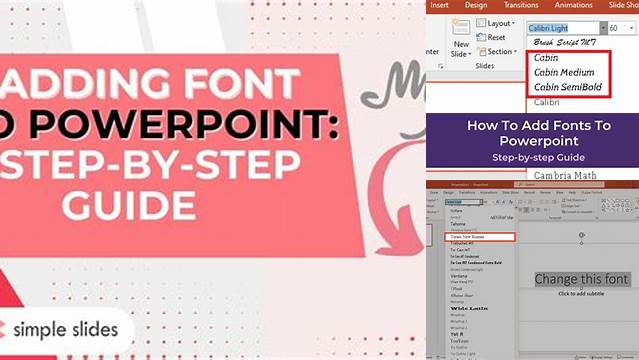
Add Fonts To PowerPoint: A Simple Guide
Hey guys! Ever felt like your PowerPoint presentations are looking a little... blah? Like they're missing that special oomph? One of the easiest ways to inject some personality and visual flair into your slides is by adding new fonts. PowerPoint comes with a decent selection of fonts, but sometimes you need something a little different, something that truly captures the essence of your message and brand. Whether you're aiming for a sleek and modern look, a playful and whimsical vibe, or a formal and professional feel, the right font can make all the difference. In this comprehensive guide, we'll walk you through the process of how to add new fonts in PowerPoint, step by step, ensuring your presentations always look their best. We'll cover everything from finding and downloading fonts to installing them on your system and using them in your presentations. So, grab a cup of coffee, get comfortable, and let's dive into the world of fonts!
Why Add New Fonts to PowerPoint?
Before we get into the how, let's briefly touch on the why. Why should you even bother adding new fonts to PowerPoint? Well, the answer is simple: fonts are powerful tools for communication. They can evoke emotions, convey tone, and reinforce your message. Using the same old default fonts can make your presentations look generic and uninspired. By adding new fonts, you can:
- Enhance Visual Appeal: Fresh fonts can instantly make your slides more visually appealing and engaging.
- Reinforce Branding: Using fonts that align with your brand identity helps create a consistent and professional look.
- Improve Readability: Certain fonts are easier to read than others, which can significantly impact your audience's comprehension.
- Add Personality: Fonts can inject personality and character into your presentations, making them more memorable.
- Stand Out from the Crowd: Using unique fonts helps your presentations stand out from the sea of generic slideshows.
So, now that we understand the importance of fonts, let's get to the fun part: adding them to PowerPoint!
Finding the Perfect Fonts
Considerations When Choosing a Font
Before you download a bunch of fonts, it's important to consider a few factors to ensure you choose fonts that are appropriate for your presentations. Here are some key considerations:
- Readability: First and foremost, choose fonts that are easy to read, especially at smaller sizes. Avoid overly decorative or script fonts for body text, as they can be difficult to decipher. Stick to clear and legible fonts for the main content of your slides. Readability is paramount, as your audience needs to be able to easily absorb the information you're presenting. A beautiful font is useless if it's too hard to read. When thinking about how to add new fonts in PowerPoint, remember this vital consideration.
- Purpose: Consider the purpose of your presentation and the message you're trying to convey. A formal presentation might call for a more professional and classic font, while a creative presentation might benefit from a more playful and modern font. The font should align with the overall tone and style of your presentation. If you're presenting to a corporate audience, for example, you'll want to choose fonts that project authority and professionalism. A casual presentation, on the other hand, might allow for more creative freedom.
- Font Pairing: Using a combination of fonts can add visual interest to your presentations, but it's important to choose fonts that complement each other. A good rule of thumb is to pair a sans-serif font (like Arial or Helvetica) with a serif font (like Times New Roman or Garamond). Use one font for headings and another for body text. Font pairing is an art in itself, and mastering it can significantly elevate the design of your presentations. There are many online resources that offer font pairing suggestions, which can be helpful if you're unsure where to start.
- Licensing: Always check the licensing terms of any font you download, especially if you plan to use it for commercial purposes. Some fonts are free for personal use but require a license for commercial use. Make sure you understand the terms before using the font in your presentations. Ignoring licensing terms can lead to legal issues, so it's always best to be cautious and do your research. When considering how to add new fonts in PowerPoint, bear in mind that respecting font licenses is a key part of responsible design.
- Consistency: Use fonts consistently throughout your presentation. Avoid using too many different fonts, as this can make your slides look cluttered and unprofessional. Stick to a maximum of two or three fonts per presentation. Consistency is key to creating a cohesive and polished look. A consistent font choice will also help your audience focus on the content rather than being distracted by visual inconsistencies.
Installing Fonts on Your System
Once you've found the perfect font, the next step is to install it on your system. This process is generally the same for both Windows and macOS, although there might be slight variations. Here's a step-by-step guide:
- Download the Font File: Download the font file from your chosen source. Fonts typically come in a compressed ZIP file. If you have Windows, understanding how to add new fonts in PowerPoint involves first understanding how to download and manage fonts on your operating system.
- Extract the Font File: Locate the downloaded ZIP file and extract its contents. You should find one or more font files, usually with extensions like
.ttf(TrueType Font) or.otf(OpenType Font). These are the files you will be installing. - Install the Font: There are a couple of ways to install the font:
- Right-Click Method: Right-click on the font file (
.ttfor.otf) and select "Install." Windows will automatically install the font. This is the simplest and quickest method for installing a single font. - Fonts Folder Method: Open the Control Panel and navigate to "Appearance and Personalization" > "Fonts." You can also search for "Fonts" in the Start menu. Drag and drop the font file into the Fonts folder. This method is useful for installing multiple fonts at once.
- Right-Click Method: Right-click on the font file (
- Restart Applications: After installing the font, you may need to restart PowerPoint (and any other applications you want to use the font in) for the font to appear in the font list. This ensures that the applications recognize the newly installed font.
For macOS:
- Download the Font File: Download the font file from your chosen source. As with Windows, fonts on macOS often come in ZIP files.
- Extract the Font File: Double-click the ZIP file to extract its contents. You should find one or more font files (
.ttfor.otf). - Install the Font: There are a couple of ways to install the font on macOS, much like Windows. Learning how to add new fonts in PowerPoint on a Mac mirrors the system-level font installation process:
- Font Book Method: Double-click the font file. This will open the Font Book application, which is macOS's built-in font management tool. Click "Install Font" in the Font Book window.
- Drag and Drop Method: Open Font Book (you can find it in the Applications folder). Drag and drop the font file into the Font Book window. This is a convenient method for installing multiple fonts simultaneously.
- Restart Applications: As with Windows, you might need to restart PowerPoint for the font to appear in the font list. This ensures that the application refreshes its font cache and recognizes the newly installed font.
Using New Fonts in PowerPoint
Now that you've installed your new fonts, it's time to put them to use in your presentations! Here's how to use them in PowerPoint:
- Open PowerPoint: Launch PowerPoint and open the presentation you want to work on. Learning how to add new fonts in PowerPoint culminates in being able to actively use these fonts in your slideshows.
- Select Text: Select the text you want to change the font for. You can select a single word, a paragraph, or an entire text box.
- Choose the Font: Go to the "Home" tab on the ribbon. In the "Font" group, you'll see a dropdown menu that displays the current font. Click the dropdown menu to see a list of available fonts. Your newly installed fonts should appear in this list. Scroll through the list or use the search bar to find your desired font.
- Apply the Font: Click on the font you want to use. The selected text will be updated with the new font. You can experiment with different fonts and sizes to find the perfect look for your text. The impact of the right font cannot be overstated; it’s a key element in communicating your message effectively.
- Save Your Presentation: Don't forget to save your presentation to preserve your changes. It's a good practice to save your work frequently to avoid losing any progress.
Embedding Fonts (Optional but Recommended)
One important thing to consider is embedding fonts in your presentation. Embedding fonts ensures that your presentation will look the same on any computer, even if the recipient doesn't have the same fonts installed. This is especially crucial if you're using custom or non-standard fonts. To understand the final step in how to add new fonts in PowerPoint to create presentations that are consistent across different machines, font embedding is the answer.
Here's how to embed fonts in PowerPoint:
- Go to File > Options: Click the "File" tab in the ribbon and then select "Options."
- Select the Save Tab: In the PowerPoint Options dialog box, click the "Save" tab.
- Embed Fonts: Under the "Preserve fidelity when sharing this presentation" section, check the box that says "Embed fonts in the file." You'll have two options:
- "Embed only the characters used in the presentation (best for reducing file size)": This option embeds only the characters you've actually used in your presentation, which helps keep the file size smaller.
- "Embed all characters (best for editing by other people)": This option embeds all the characters in the font, which allows others to edit the presentation and use the font even if they don't have it installed. However, this will increase the file size.
- Click OK: Click "OK" to save the changes. Now, when you share your presentation, the fonts will be embedded in the file, ensuring that it looks the same on any computer.
Sometimes, you might encounter issues when adding or using new fonts in PowerPoint. Here are some common problems and how to troubleshoot them:
- Font Not Showing Up: If you've installed a font but it's not showing up in PowerPoint, try restarting PowerPoint. If that doesn't work, restart your computer. This often resolves issues with font caching. Another potential solution is to ensure the font is properly installed in your system’s font directory.
- Font Looks Different: If a font looks different on another computer, it's likely that the font is not installed on that computer. This is why embedding fonts is so important. If you can't embed the font for some reason, you may need to use a more common font or provide the font file to the recipient.
- Font is Garbled: If a font appears garbled or distorted, it could be a corrupted font file. Try downloading the font again from a reputable source. You can also try clearing your font cache, as this sometimes resolves display issues.
- Licensing Issues: If you're having trouble using a font for commercial purposes, make sure you have the appropriate license. Review the font's licensing terms to ensure you're complying with the requirements. Contact the font designer or foundry if you have any questions about licensing.
Adding new fonts to PowerPoint is a fantastic way to enhance the visual appeal of your presentations and make them more engaging. By following the steps outlined in this guide, you can easily find, install, and use new fonts to create stunning slideshows that truly stand out. Remember to choose fonts that are readable, appropriate for your purpose, and consistent with your brand. And don't forget to embed your fonts to ensure your presentation looks its best on any computer. So, go ahead and explore the world of fonts and let your creativity shine through your presentations! Guys, the possibilities are endless when you know how to add new fonts in PowerPoint.